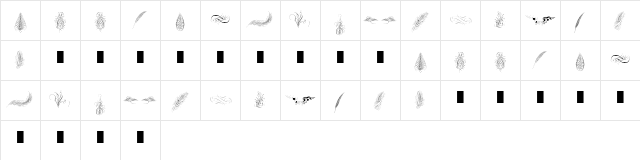
Penmanship Feathers is a composed and adaptable typeface that performs quietly and consistently across a wide range of design contexts.
Pro Tip: Use Penmanship Feathers in both headline and body roles to test its range before committing to a single application.